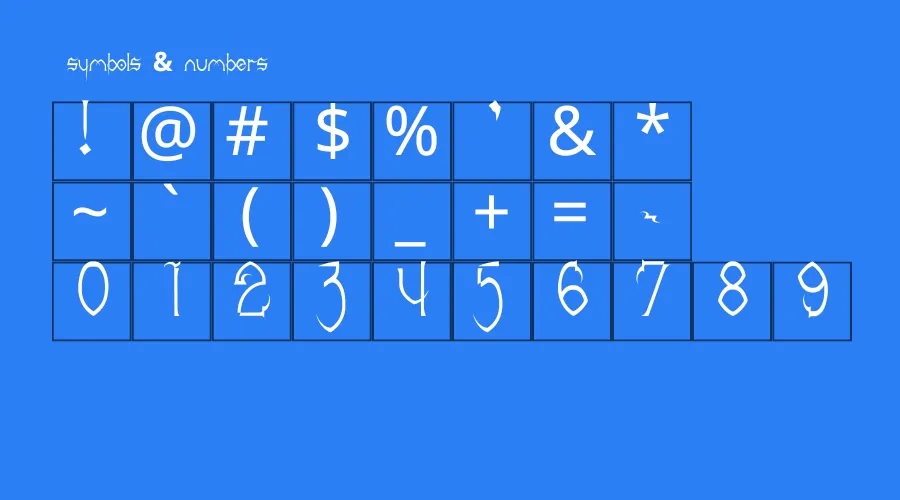
Donrees Claws Font
About Donrees Claws Font
Sinister Fonts designed by Donrees Claws Font is a Gothic style for creative and animation design applications, and it is appropriate. This excellent font can be used to create eye-catching logos for various businesses and organizations.
Under your project, you can integrate it with any design. It is possible to create some great displays when you pair this typeface with cocomelon font. An attractive texture design can be seen in this typeface.
This fashionable typeface may be used to create stunning cards, as well as posts on social media. There is no doubt that this typeface is very popular among designers and people use it for their purposes due to its soft and unique look.
The typeface can be found on magazine covers, book covers, and website designs. This typeface is appropriate for use when designing eBooks and electronic book covers. You can easily combine it with the cafeta font.
It is idealized for logos, labeling, notices, publications, websites, and more. As the main idea behind creating this typeface is to provide unique but functional designs that would be ideal choices among different typefaces, we wanted to create a typeface that would provide unique and efficient designs.
Name Donrees Claws Font
Designer Sinister Fonts
Style Gothic
Can I use Donrees Claws Font easily?
It is easy to use Donrees Claws Typeface. To make use of this interesting style of writing. This typeface is appropriate for use when designing eBooks and electronic book covers.
Who designed Donrees Claws Typeface?
This amazing typeface was designed by the well-known graphic designer Sinister Fonts.